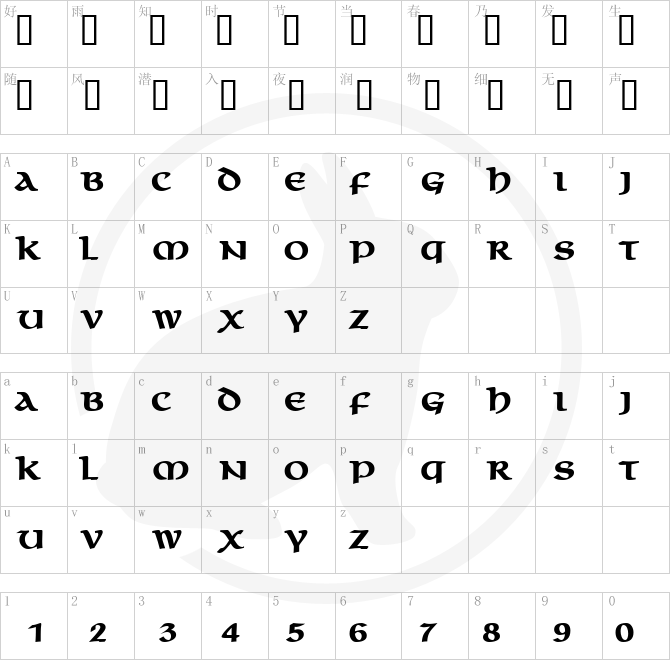
- Font Name:MacedonCapsSSK
- Full Name:MacedonCapsSSK Bold
MacedonCapsSSK-Bold.ttf is a very beautiful artistic font, MacedonCapsSSK-Bold.ttf is widely used in the design and printing of various books and pictures,MacedonCapsSSK-Bold.ttf has a strong visual impact,MacedonCapsSSK-Bold.ttf is a commonly used font in newspapers, magazines and books, and is used in posters, e-commerce Poster design, store design, logo design, font design and other fields.MacedonCapsSSK-Bold.